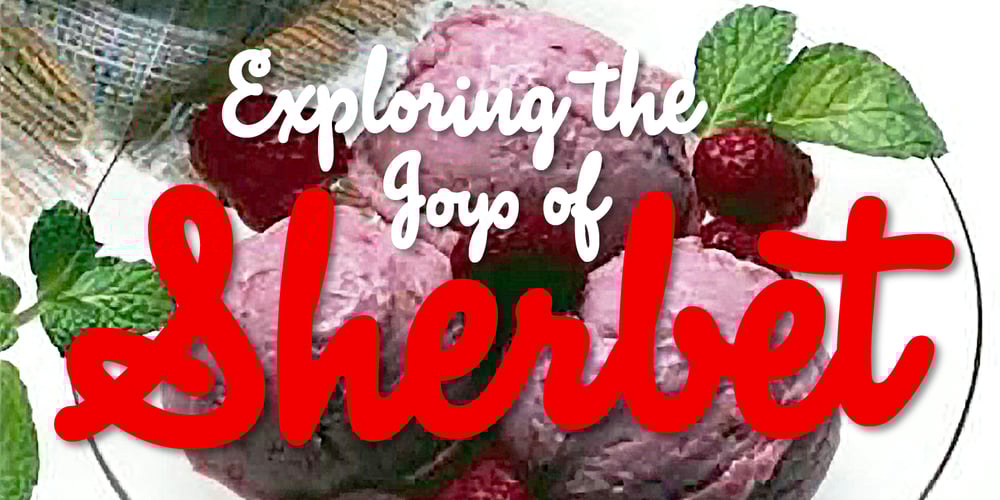
Sherbet BF Font Family was designed by John Bomparte and published by Bomparte’s Fonts. Sherbet BF contains 1 styles and family package options. Sherbet BF is a robust, bouncy handwritten-style script with an enthusiastic voice. A number of Automatic Ligatures and Contextual Alternates, are included in the font, along with Stylistic Alternates for lowercase letters g, and y. Enable these features in OpenType-savvy programs (such as InDesign CS+, Illustrator CS+ and QuarkXpress 7 and later) to enhance your typography. As with most scripts, it is not recommended that word settings be in all uppercase, but rather in settings of initial capitals together with lowercase letters.